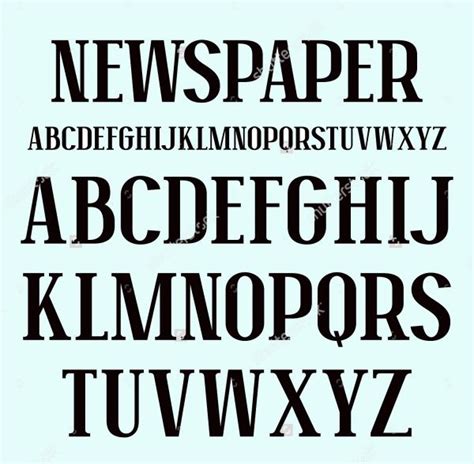
Hey guys! Ever scrolled through a vintage magazine or a classic newspaper and thought, “Man, that font is so cool!”? You’re not alone! There’s something undeniably timeless and stylish about those old-school newspaper fonts. They bring a sense of history, a touch of grit, and a whole lot of character to any design project. Whether you’re a graphic designer looking to add a retro vibe to a poster, a blogger wanting to create a unique header, or just someone who loves the aesthetic, you’ve probably wondered where you can snag some of these awesome fonts. Well, you’re in luck! Today, we’re diving deep into the world of free newspaper fonts , showing you where to find them, what makes them special, and how you can use them to make your projects stand out. Get ready to give your designs that authentic, old-world charm without spending a dime!
Why Newspaper Fonts Are Still a Big Deal
So, what’s the big deal with newspaper fonts, anyway? Why are designers and creatives still flocking to them in our super-modern, digital age? Well, it’s all about the vibe , guys. Newspaper fonts often evoke a sense of nostalgia, harkening back to a time when information was delivered in print, with a certain gravitas and a distinct visual style. Think of the bold headlines, the crisp serif details, and the slightly condensed forms that were designed to fit a lot of text onto a limited space. These fonts aren’t just about readability; they’re about conveying a message, setting a mood, and telling a story before someone even reads a single word. They can add a touch of sophistication, a dash of urgency, or a hint of journalistic integrity to your work. In graphic design, using a well-chosen newspaper font can instantly transport your audience. It can make a modern design feel more grounded and established, or it can enhance a vintage theme with an extra layer of authenticity. Plus, let’s be honest, they just look good . The classic serifs often have a refined elegance, while the more utilitarian sans-serifs of the era can bring a no-nonsense, impactful feel. They are versatile too! You might think of them strictly for historical projects, but they can be surprisingly effective in contemporary designs, offering a unique contrast that grabs attention. Imagine a trendy t-shirt design with a bold, newspaper-style headline, or a wedding invitation with a sophisticated, old-world serif font for the main details. The possibilities are practically endless! They offer a tangible connection to the past, a tangible feel that digital fonts sometimes struggle to replicate. This connection is powerful and can resonate deeply with viewers.
The Classic Newspaper Font Aesthetic
When we talk about newspaper fonts , what kind of look are we actually talking about? It’s a pretty specific aesthetic, right? Typically, you’re looking at fonts that were designed for maximum readability in print, often under tight deadlines and with the need to conserve space. This often translates to a few key characteristics. First off, you’ll frequently see serif fonts . These are the ones with the little feet or strokes at the ends of the letterforms. Think of classic newspaper headlines or the body text in old novels. These serifs help guide the eye across the page, making long passages of text easier to read, especially in lower resolutions or print. Some popular examples of serif styles you might find echoed in newspaper fonts include Garamond , Times New Roman (though a bit more modern, it shares DNA), and various slab serifs which have thicker, blockier serifs. Secondly, condensed or narrow letterforms are super common. Newspapers had limited column widths, so designers needed fonts that could pack a lot of information into a small space without looking cramped. This means letters are often taller and narrower than usual, which can give a design a sense of urgency or importance, especially for headlines. Then there’s the boldness . Newspaper headlines, in particular, needed to grab attention. So, you’ll often find very heavy or black weights available in these font families. These bold fonts are fantastic for making a statement and creating strong visual hierarchy. Beyond serifs and condensed styles, you might also encounter slab serifs , which have very thick, block-like serifs, giving them a sturdy, almost industrial feel. These were popular for display type in the early to mid-20th century. On the sans-serif side, you might find styles reminiscent of early Gothic or Grotesque fonts, which are simpler, cleaner, and often quite geometric. These were used for captions, bylines, or sometimes even for a more modern, minimalist headline look. The overall impression is usually one of clarity, authority, and a touch of historical weight. They aren’t usually overly decorative; their beauty lies in their functional design and their ability to communicate effectively. Understanding these core characteristics will help you identify and choose the perfect newspaper font for your next project!
• UrbanFonts : Similar to DaFont, UrbanFonts offers a mix of free and commercial fonts. Be sure to check the licensing for each font you download, as many are free for personal use but require payment for commercial projects. They have a good selection of serif and display fonts that can work well for a newspaper vibe.
• Behance & Dribbble : These are creative communities where designers often share their work, including free font releases. While not dedicated font sites, designers sometimes offer their custom-made fonts for free download, often as promotional material. Keep an eye out for talented typographers sharing their creations. You might find some truly unique and high-quality newspaper-style fonts here.
When you’re browsing, keep an eye out for fonts that have a good range of weights (bold, regular, italic) and character sets, especially if you plan to use them for more than just display headlines. Happy hunting, guys!
Tips for Choosing the Right Newspaper Font
Now that you know where to look, how do you pick the perfect newspaper font free download for your project? It’s not just about grabbing the first thing that looks old, you know? A little strategy goes a long way. First off, consider the purpose and tone of your design. Are you going for a serious, historical documentary feel, or a quirky, retro-inspired piece? A bold, condensed slab serif might be perfect for a punchy headline about a breaking news story, while a more refined, classic serif could be ideal for the byline or a feature article that has a more literary feel. Don’t be afraid to mix and match fonts, but do it wisely! Using one newspaper-style font for headlines and a complementary, simpler font for body text can create excellent contrast and visual hierarchy. Just ensure they don’t clash. Always, always check the license . I can’t stress this enough, guys. If you’re using the font for a client project or anything that will generate revenue, make sure it’s licensed for commercial use. Free for personal use doesn’t cut it for business! Read the fine print. Another crucial tip is to test the font at different sizes . Some fonts that look great as huge headlines can become unreadable when shrunk down for smaller text, and vice versa. Preview the font with your actual text – headlines, subheadings, maybe even a few sentences – to see how it performs. Pay attention to readability , especially for body text. Fonts designed for headlines might be too decorative or condensed for comfortable reading over long periods. If you’re using it for a lot of text, opt for a clearer, more traditional newspaper font style. Finally, think about context . Does the font fit the overall brand or theme you’re trying to create? A newspaper font can be incredibly versatile, but it needs to make sense within the broader design. Trust your gut, but also rely on these practical tips to make an informed choice. Happy designing!
Creative Ways to Use Newspaper Fonts
Okay, you’ve found some awesome free newspaper fonts and you’re ready to start designing. But how can you use them in ways that are fresh and exciting? Let’s think outside the box, shall we?
Headlines and Titles That Pop
This is the most obvious use, but let’s elevate it! Instead of just sticking a newspaper font on your headline, think about how you can manipulate it . Try layering different weights of the same font, or even slightly different but complementary newspaper fonts. Experiment with text effects – maybe a subtle texture overlay that mimics old ink, or a slight roughening to give it a distressed feel. For blog posts or articles, using a bold, condensed newspaper font for the main title instantly signals a certain kind of content – maybe something informative, urgent, or with a retro twist. For social media graphics, a strong newspaper headline font can grab attention in a crowded feed far better than a generic sans-serif. Imagine a “Breaking News” style graphic for a sale announcement, or a “Special Report” banner for a new product launch. It adds an immediate professional and eye-catching quality.
Adding a Vintage Touch to Branding
Brands looking to convey a sense of history, reliability, or artisanal quality can heavily leverage newspaper fonts . Think of a craft brewery using a classic serif font for its logo and labels, suggesting time-honored brewing methods. A boutique bookstore could use a vintage newspaper font for its signage and promotional materials to evoke a literary, classic atmosphere. Even a modern tech company might use a subtle newspaper-style font for specific campaign elements to add a unique, memorable touch, perhaps playing on themes of information or innovation. It’s about creating a narrative. A carefully chosen font becomes part of that story, helping to communicate the brand’s values and personality. Remember, the goal isn’t just to make it look old; it’s to use the qualities associated with newspaper fonts – authority, clarity, history – to enhance your brand’s message.
Unique Applications in Print and Digital Design
Beyond headlines and branding, there are countless other ways to get creative. Use a newspaper font for custom invitations or stationery . Imagine wedding invites with elegant, vintage-style fonts for the main details, or birthday cards that feel like a personalized front-page announcement. In digital design, consider using a newspaper font for UI elements if your app or website has a retro or journalistic theme. It could be for button labels, section headers, or even notification banners. For packaging design , a newspaper font can add a unique texture and appeal, especially for food products, artisanal goods, or items aiming for a nostalgic market. Think of coffee bags, artisanal soap labels, or even custom gift wrap. For t-shirt designs , bold newspaper headlines or slogans can be incredibly impactful. And don’t forget scrapbooking and crafting ! If you’re into physical crafts, printing out elements using these fonts can add a fantastic vintage or journalistic flair to your projects. You can create custom “newspaper” clippings for memory albums or embellish journals with unique typographic elements.
Common Pitfalls to Avoid
While free newspaper fonts are awesome, guys, it’s super easy to fall into a few traps if you’re not careful. Let’s talk about how to steer clear of these common mistakes so your designs shine!
Overusing the Font
The biggest one, hands down, is overuse . Just because a font is cool doesn’t mean it should be everywhere . If you use a bold, attention-grabbing newspaper font for every single headline, sub-headline, and piece of body text, it loses its impact. It becomes visual noise. Think of it like shouting – if you’re always shouting, no one pays attention anymore. Use these fonts strategically for maximum impact. Reserve them for the elements that truly need to stand out, like main titles or key calls to action. Complement them with simpler, more readable fonts for supporting text. Less is often more , especially with distinctive typefaces.
Ignoring Licensing Restrictions
Seriously, guys, this is crucial. I mentioned it before, but it bears repeating: always check the license . Many “free” fonts are only free for personal use. Using a font meant only for personal projects in a commercial website, logo, or product can lead to legal trouble and hefty fines. Websites like DaFont are great, but you must verify the license for each font you download. If you’re unsure, stick to reputable sources like Google Fonts or Font Squirrel, which clearly indicate commercial-friendliness. Don’t let a cool font land you in hot water!
Poor Readability Issues
Newspaper fonts, especially those designed for headlines or in condensed styles, can sometimes be terrible for body text . They might be too condensed, too stylized, or lack the clear letterforms needed for comfortable reading over extended periods. If your project involves a lot of text, like a blog post or a brochure, choose your newspaper font wisely. Opt for styles that are inspired by newspaper type but are designed with better readability in mind, or pair a headline newspaper font with a clean, legible sans-serif or serif font for the main content. Test it out! Read a paragraph aloud using the font. If it feels like a struggle, it’s probably not the right choice for body copy.
Mismatching with the Overall Design
Sometimes, a font just doesn’t fit . A super-grungy, distressed newspaper font might clash horribly with a sleek, minimalist brand identity. Or a fancy, ornate serif might feel out of place on a casual, fun invitation. Context is everything . Before you commit, ask yourself if the font’s personality aligns with the overall message and aesthetic of your design. Does it enhance the story you’re trying to tell, or does it feel like an awkward addition? Choosing a font that complements your design’s theme and tone will make your work look much more professional and cohesive. By avoiding these common pitfalls, you can ensure your use of newspaper fonts is effective, legal, and visually stunning. Happy designing, everyone!
Conclusion: Embrace the Power of the Press!
So there you have it, guys! We’ve explored the irresistible charm of newspaper fonts , where to find fantastic free newspaper font downloads , and how to use them like a pro while avoiding common mistakes. These fonts aren’t just relics of the past; they are powerful tools that can add a unique character, a sense of authority, and a touch of timeless style to virtually any project. Whether you’re aiming for a retro feel, a sophisticated look, or just want to make your headlines undeniably impactful, there’s a newspaper font out there waiting for you. Remember to always check those licenses, prioritize readability, and use these typographic gems strategically. Don’t be afraid to experiment and have fun with them! The world of typography is vast and exciting, and incorporating the classic aesthetic of newspaper fonts is a fantastic way to elevate your design game. So go forth, download some amazing fonts, and let the power of the press inspire your next creation! Happy designing!